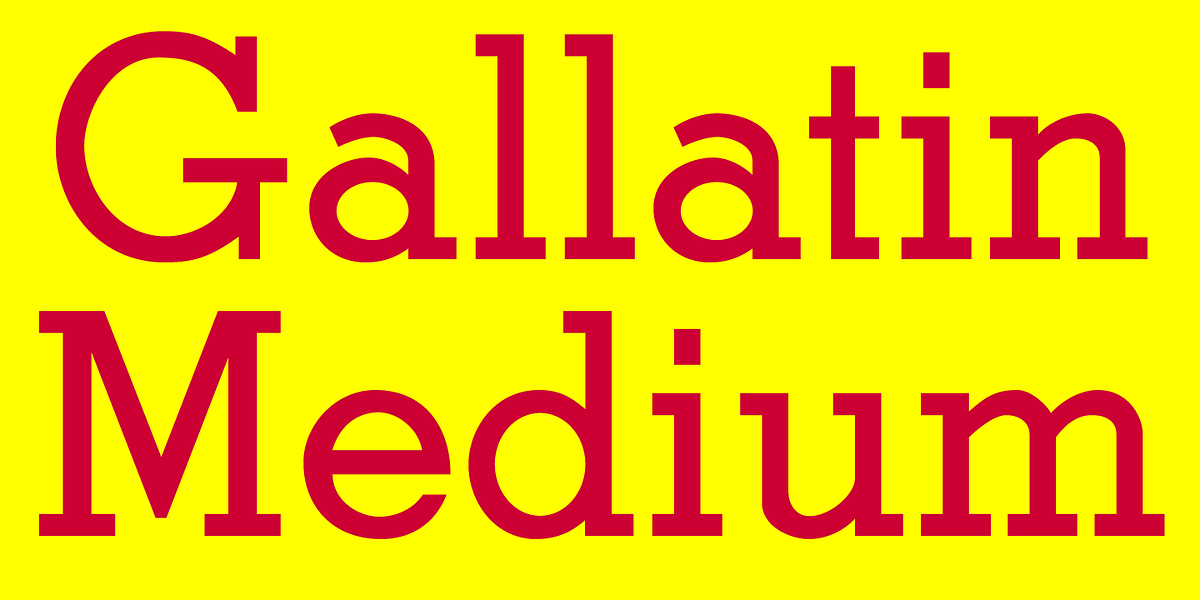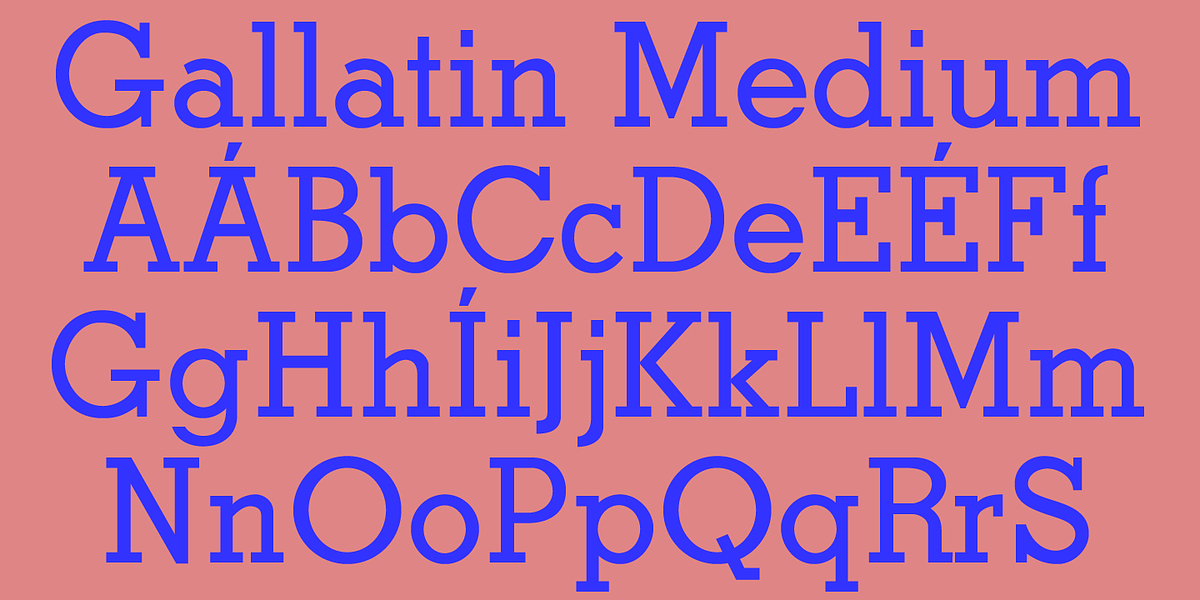
Gallatin Medium
This font is a geometric slab serif designed for display purposes. Its medium weight and distinct geometric shapes make it suitable for headlines and posters.